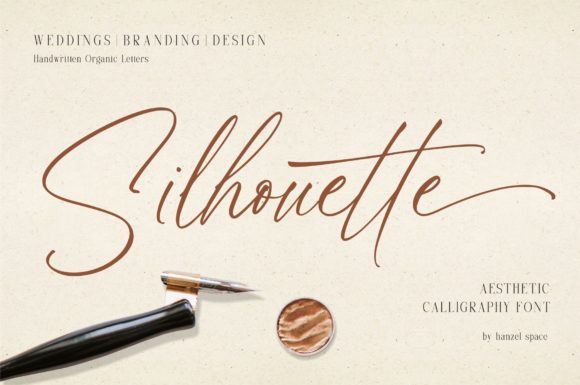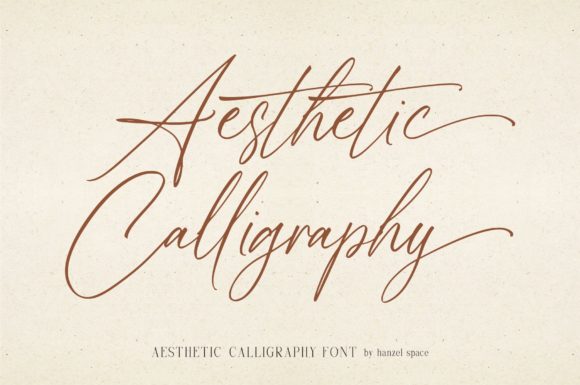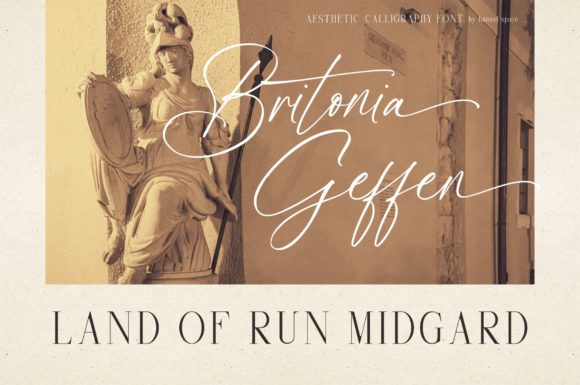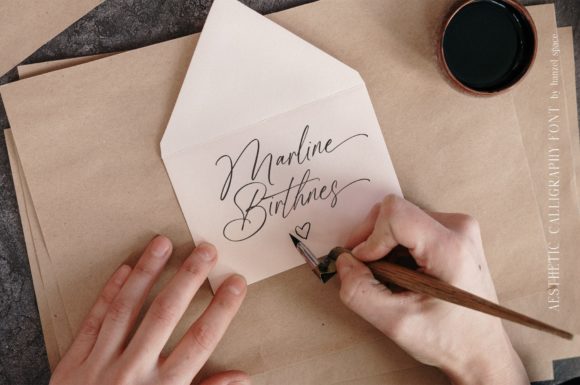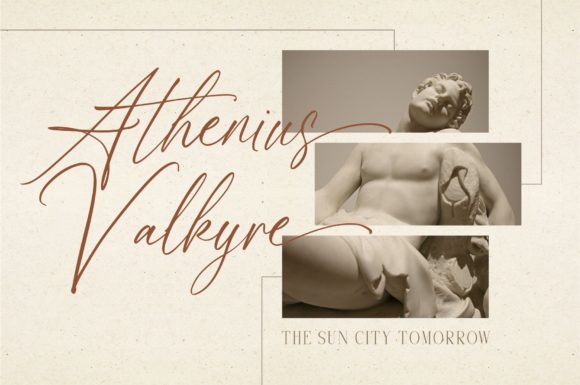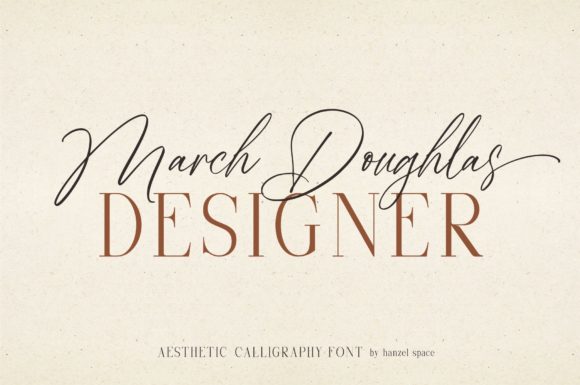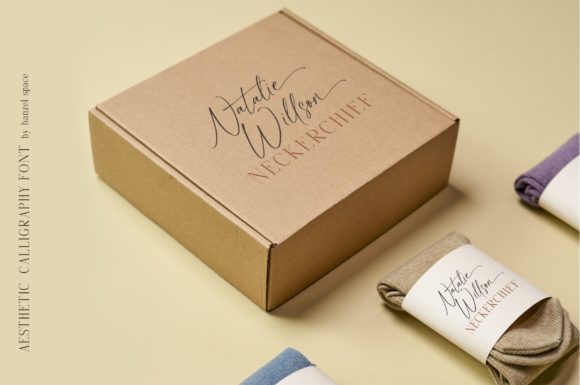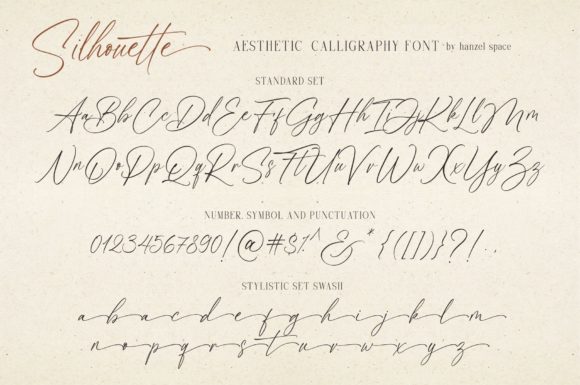
Silhouette Font
About Silhouette Font
Silhouette emerges as a superb handwritten font designed to make your work stand out with its elegant and curvy lines. This typeface is a perfect choice for a diverse range of projects, including product packaging, branding endeavors, magazine covers, social media graphics, wedding materials, or any instance where you wish to express words above a background. Notably, Silhouette is PUA encoded, ensuring easy access to all its glyphs and swashes for a seamless customization experience.
The elegance of Silhouette is reflected in its curvy lines, adding a refined and sophisticated touch to your text. The handwritten style of the font contributes to its authenticity, making it suitable for projects that require a personalized and human feel.
The versatility of Silhouette shines through its ability to adapt to various design contexts. Whether you’re creating a brand identity, designing social media visuals, or crafting wedding invitations, this font effortlessly enhances the visual appeal of your projects.
The PUA encoding feature enhances the user experience, providing accessibility to a wide array of glyphs and swashes. This flexibility empowers designers to infuse their text with decorative elements, allowing for a customized and unique expression of creativity.
In summary, Silhouette is more than just a font; it’s a creative tool that adds elegance and character to your designs. Let its superb handwritten style be the key element that makes your work stand out, whether in product packaging, branding, magazines, social media, weddings, or any creative project you undertake.